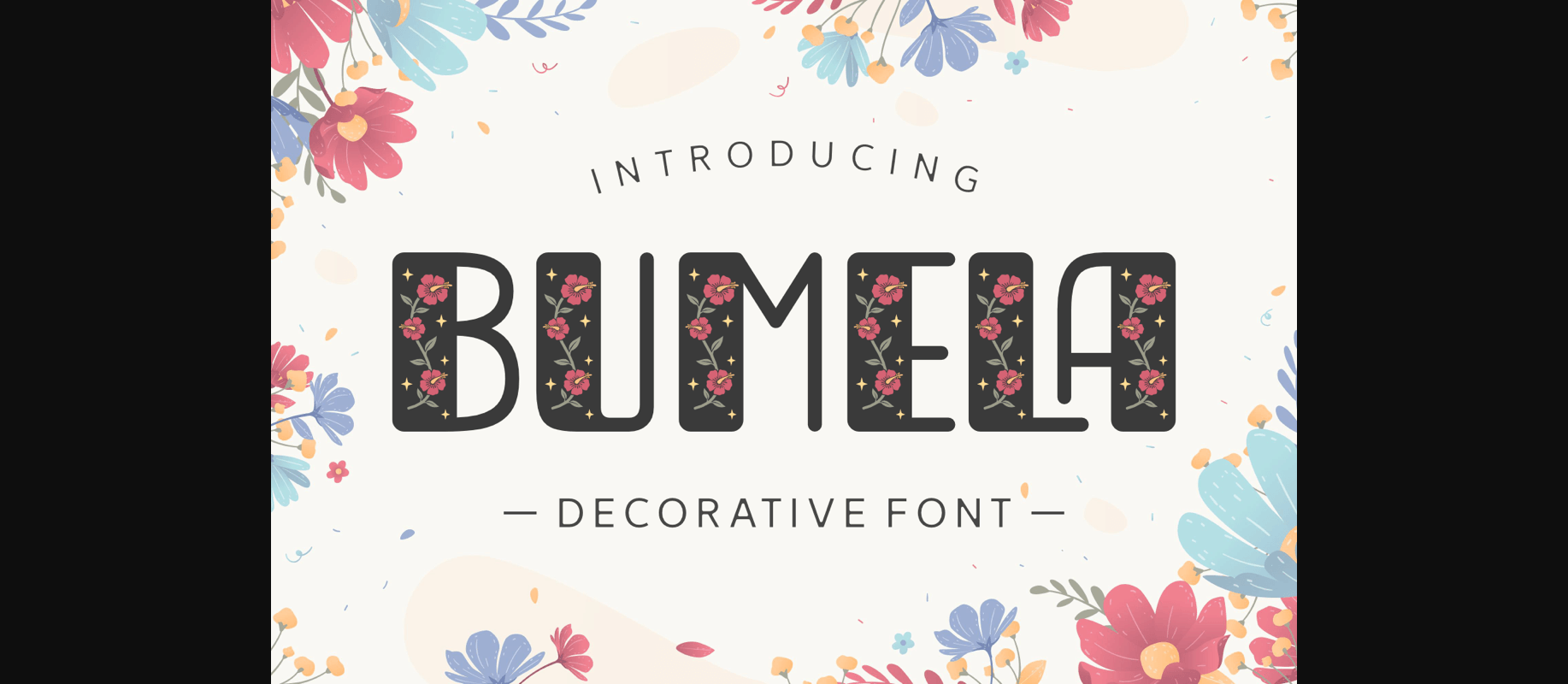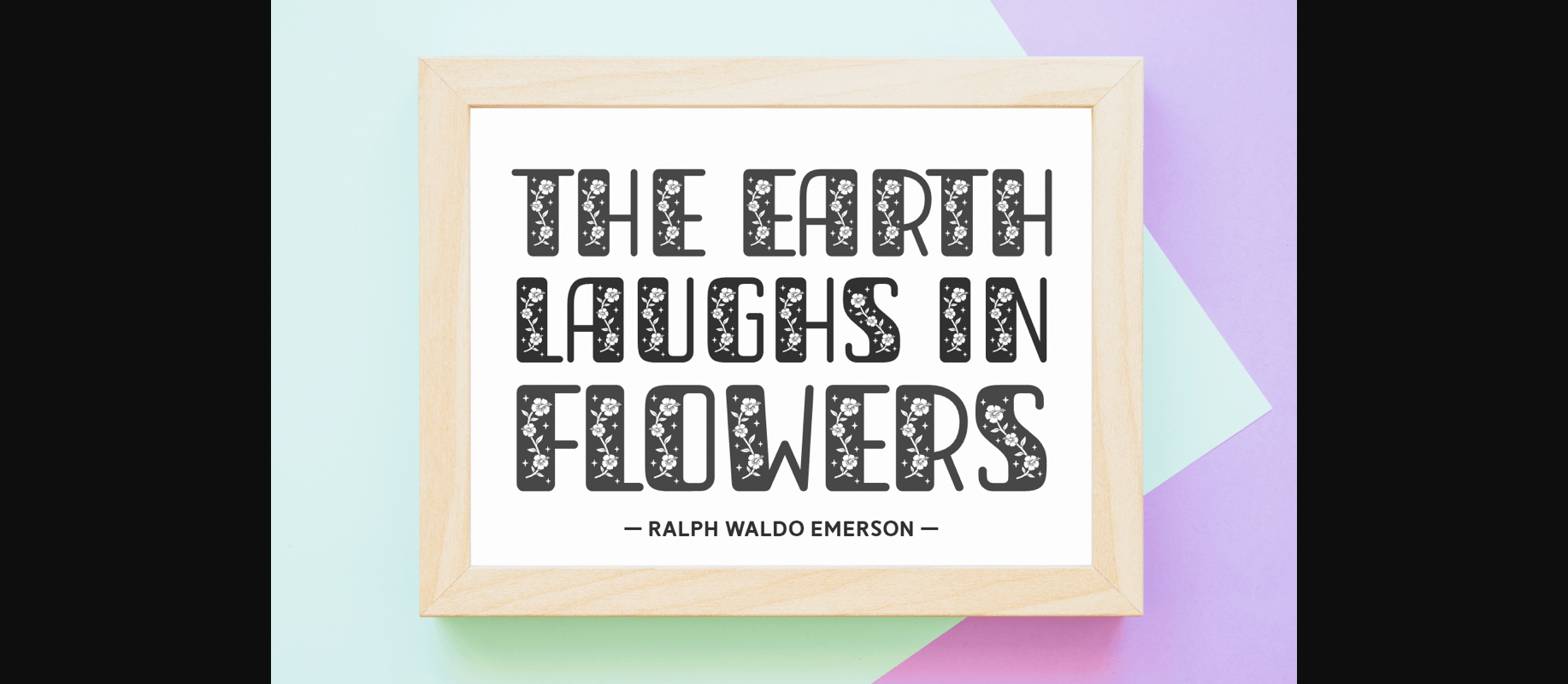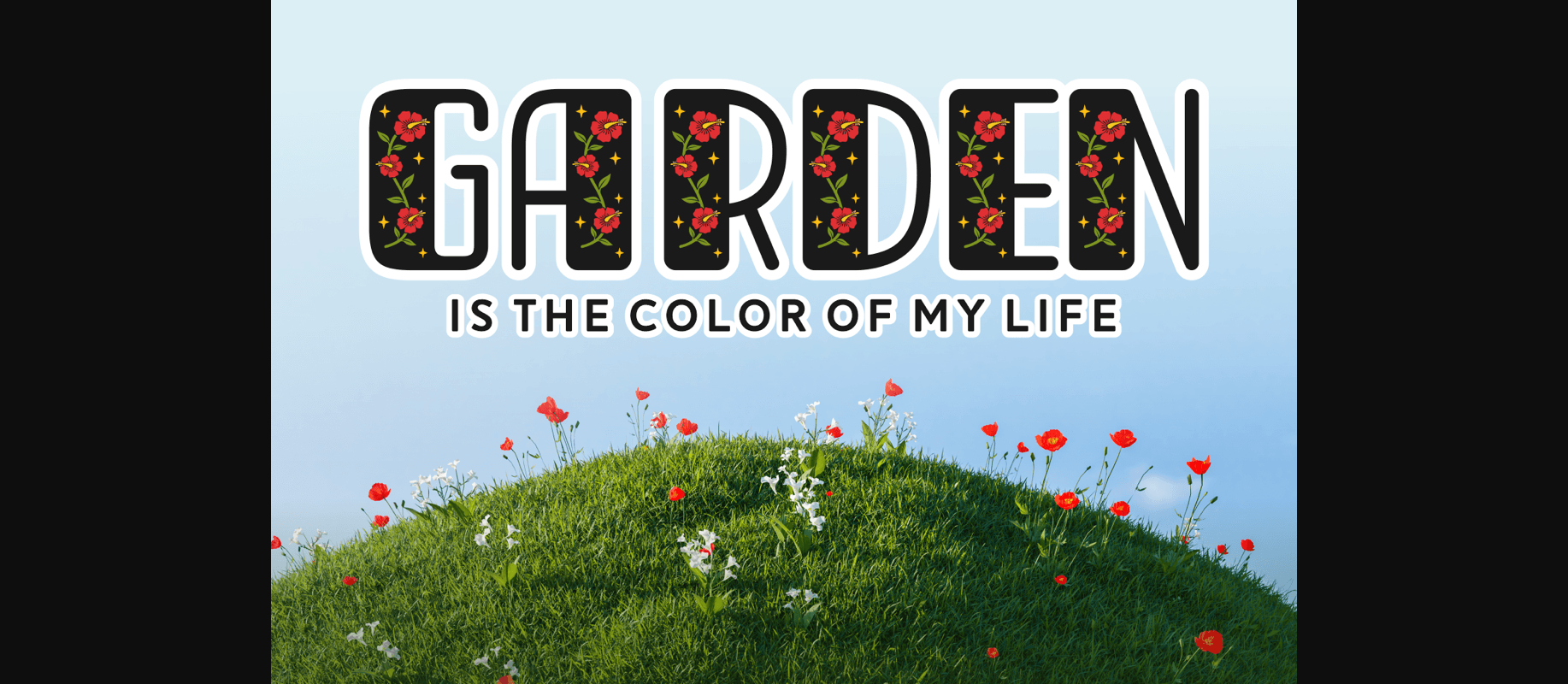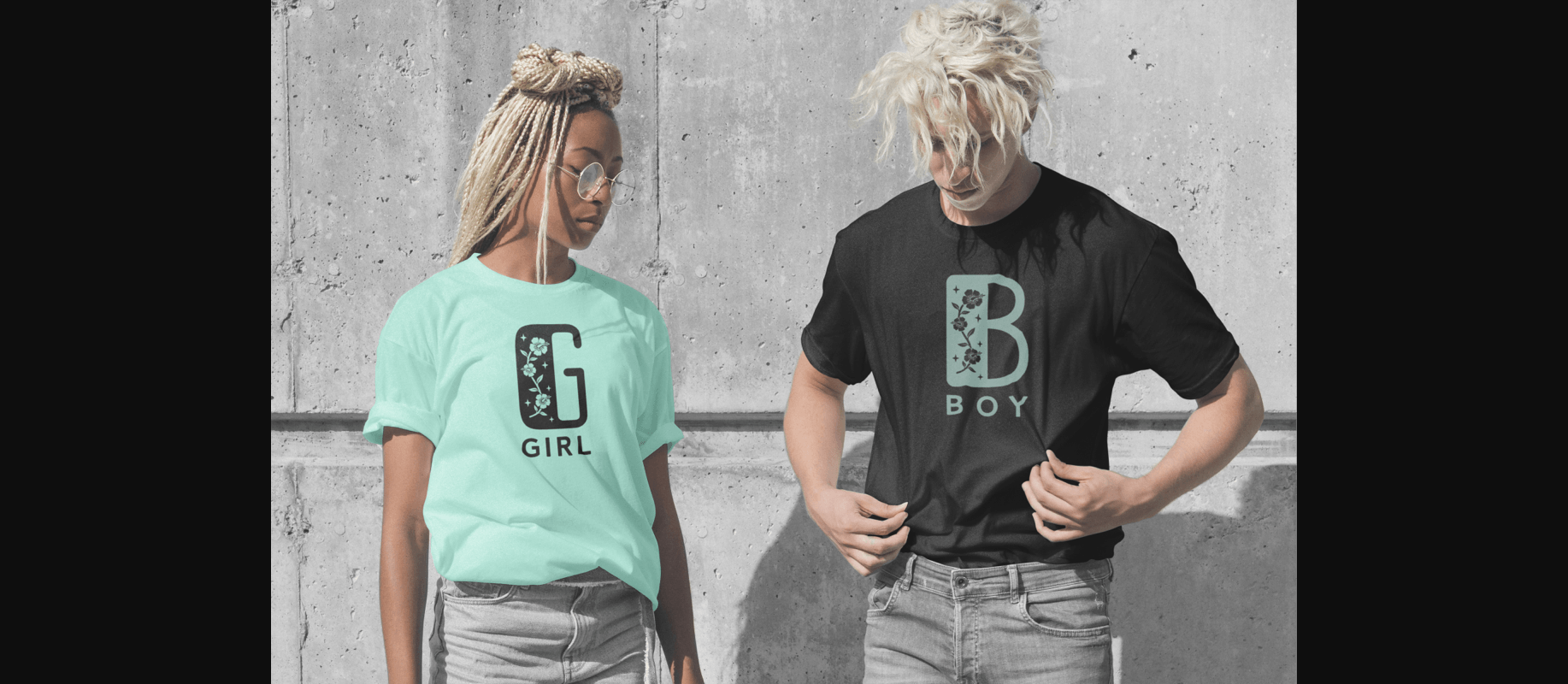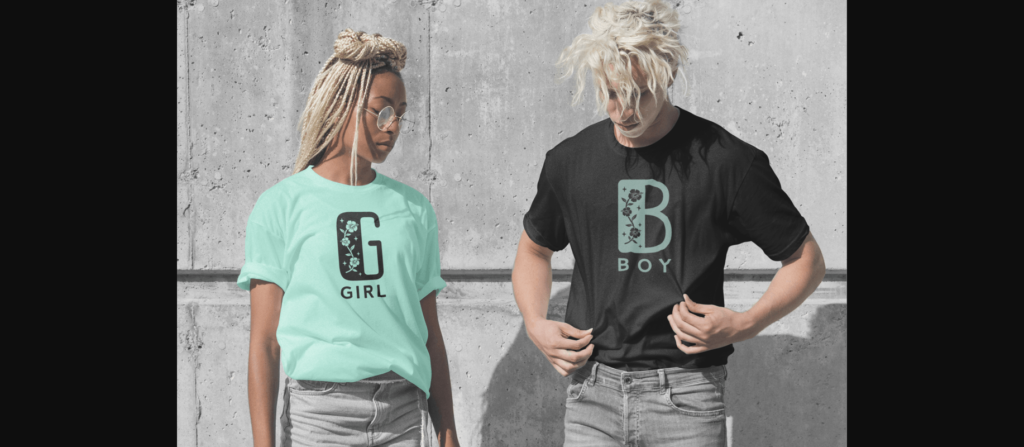
About Bumela Font
Bumela: a bold cheerful and cute font ready to accompany your design projects. Perfect for covers, merchandise, posters, creative posts, birthday cards and more.